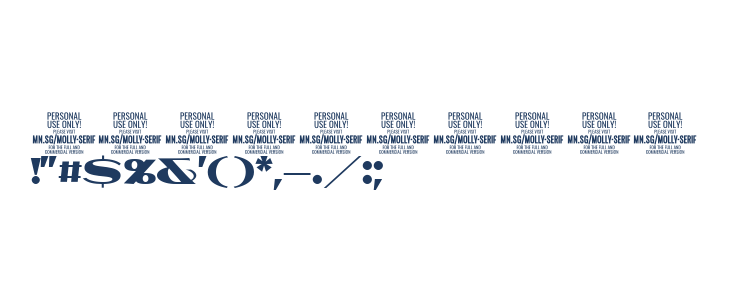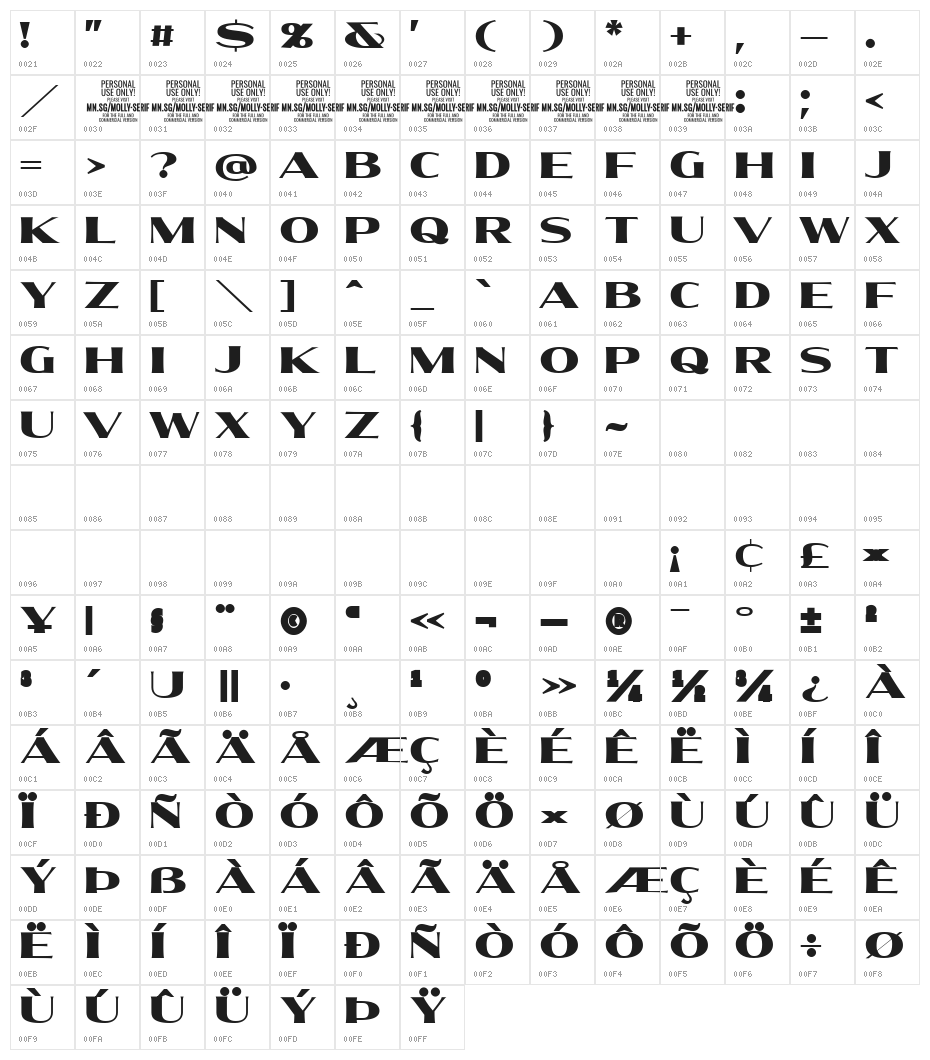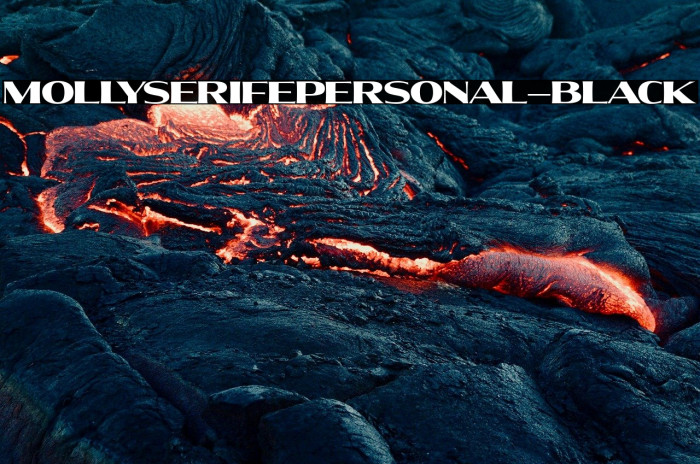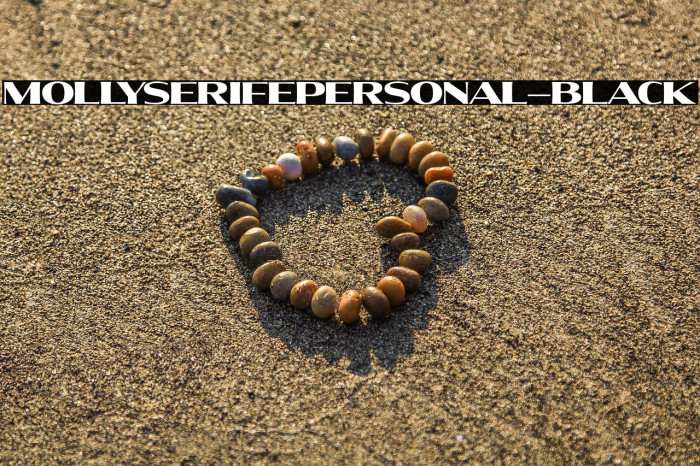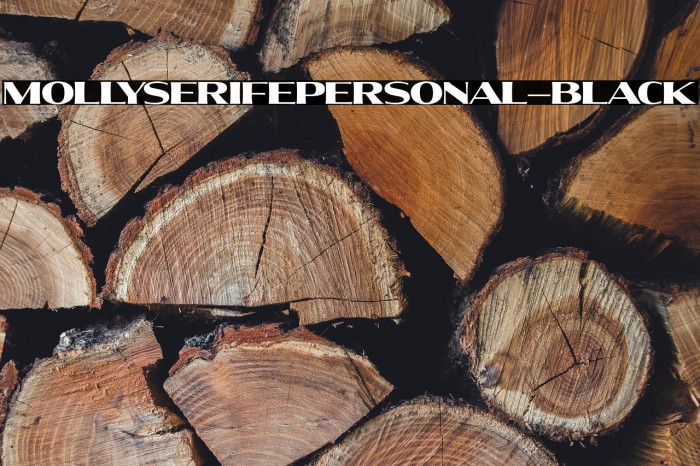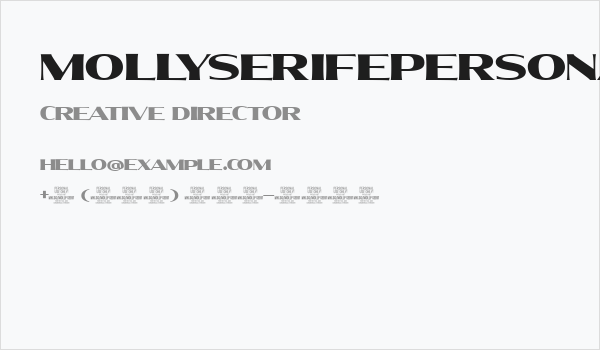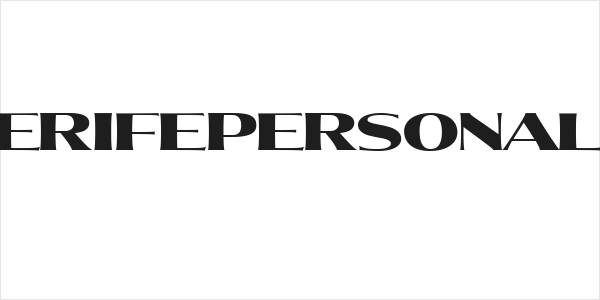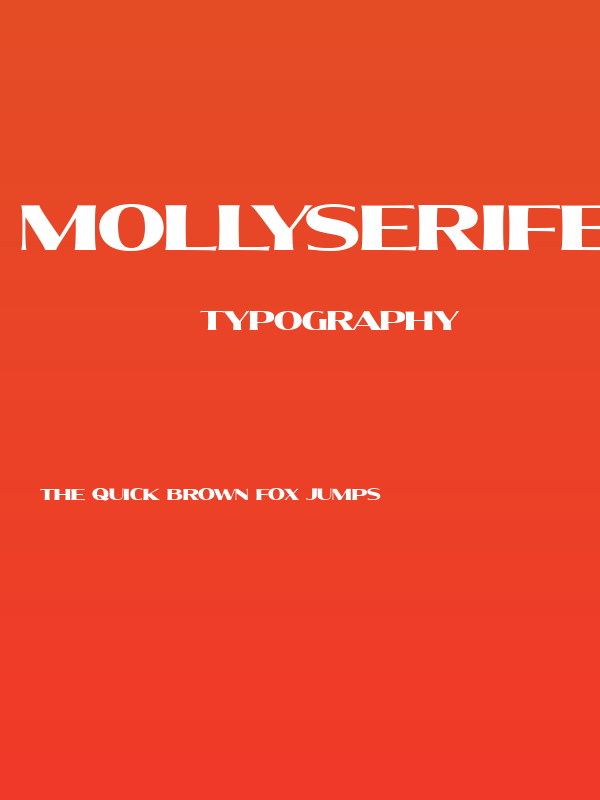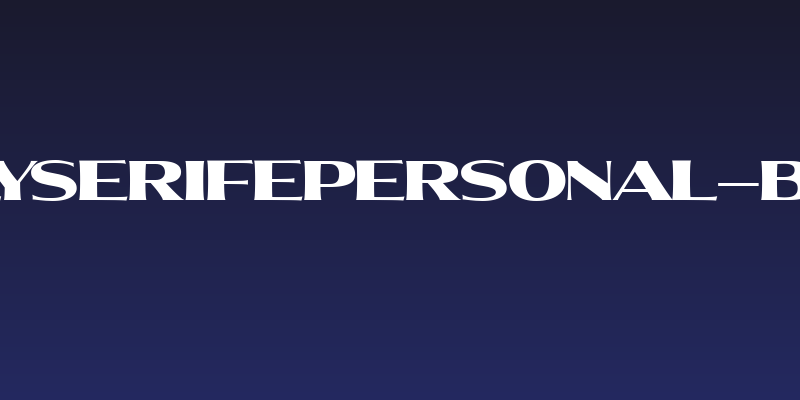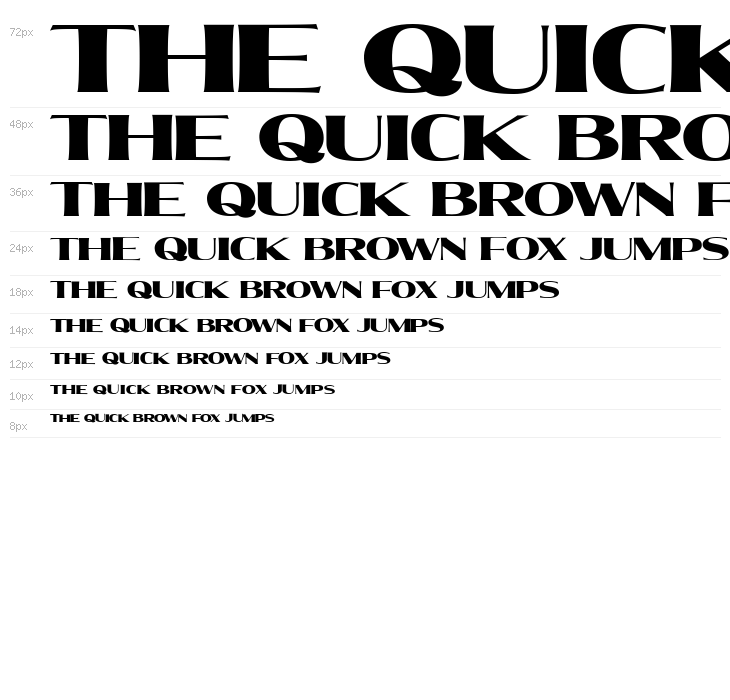
MollySerifEPERSONAL-Black Font
MollySerifEPERSONAL-Black Description
This font features a bold and striking design with strong, angular serifs that give it a distinctive and commanding presence. The uppercase letters are particularly prominent, with a wide stance and sharp edges that convey a sense of authority and elegance. The lowercase letters maintain the same boldness, ensuring consistency throughout the typeface. The numerals and special characters are designed to match the overall style, with similar angular features and a cohesive look. This font's high contrast in stroke thickness adds to its dramatic appearance, making it ideal for attention-grabbing headlines and impactful designs.
| Proposed Projects | Ideal for branding, poster design, magazine covers, and any project requiring a bold, authoritative typeface. |